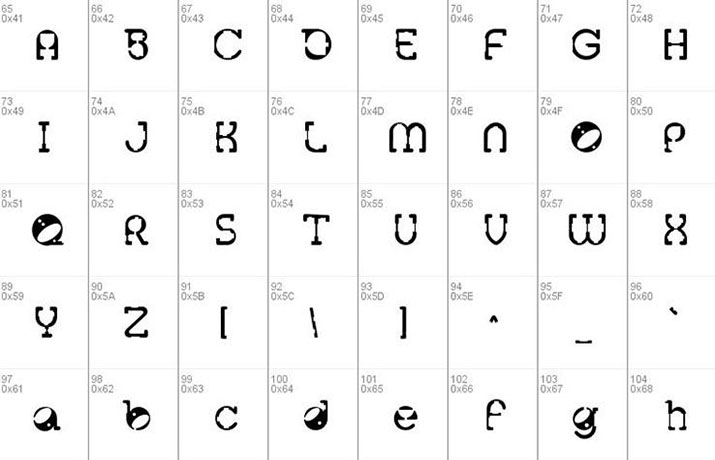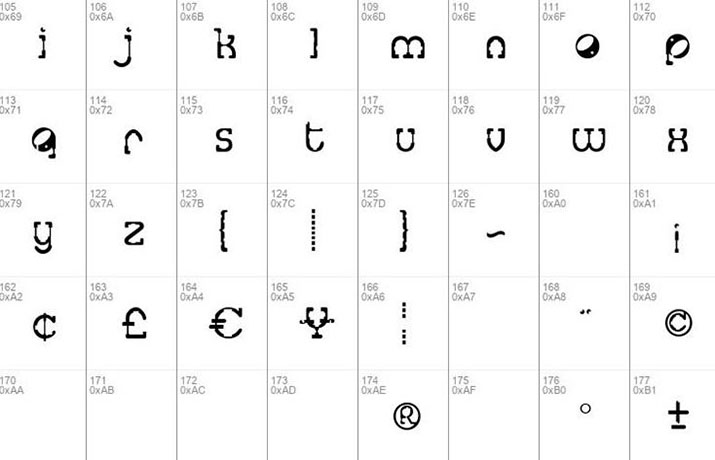
Tralfamadore Font is a display, alien sci-fi typeface that has a rounded and bubble feel. It was designed and published by Apostrophic Labs.
He has created its texture futuristic and slightly alien feel, with rounded edges just to make it fine and elegant for display tasks. So, this can give awesome designs.
Its circular shapes and futuristic lines make it an excellent choice for various works such as headlines, posters, flyers, headers, titles, science fiction themes, logo designs, and more.
“[Tralfamadore typeface comes in a single style along with True Type file formats. This style contains 200 glyphs, numbers, symbols, and 521 binary stored kerning pairs. Moreover, it also supports 60 languages]”.
| Font Name: | Tralfamadore Font Family |
| Style: | Sci-fi, Alien, Display |
| Font Designer: | Apostrophic Labs |
- In addition to creating many other fantastic things, you may design incredible logos, headers, covers, posters, business cards, emblems, branding, game titles, social media posters, headers, banners, game graphics, posters, labels, product designs, technical documents, and banner designs.
This font supports 60 languages.